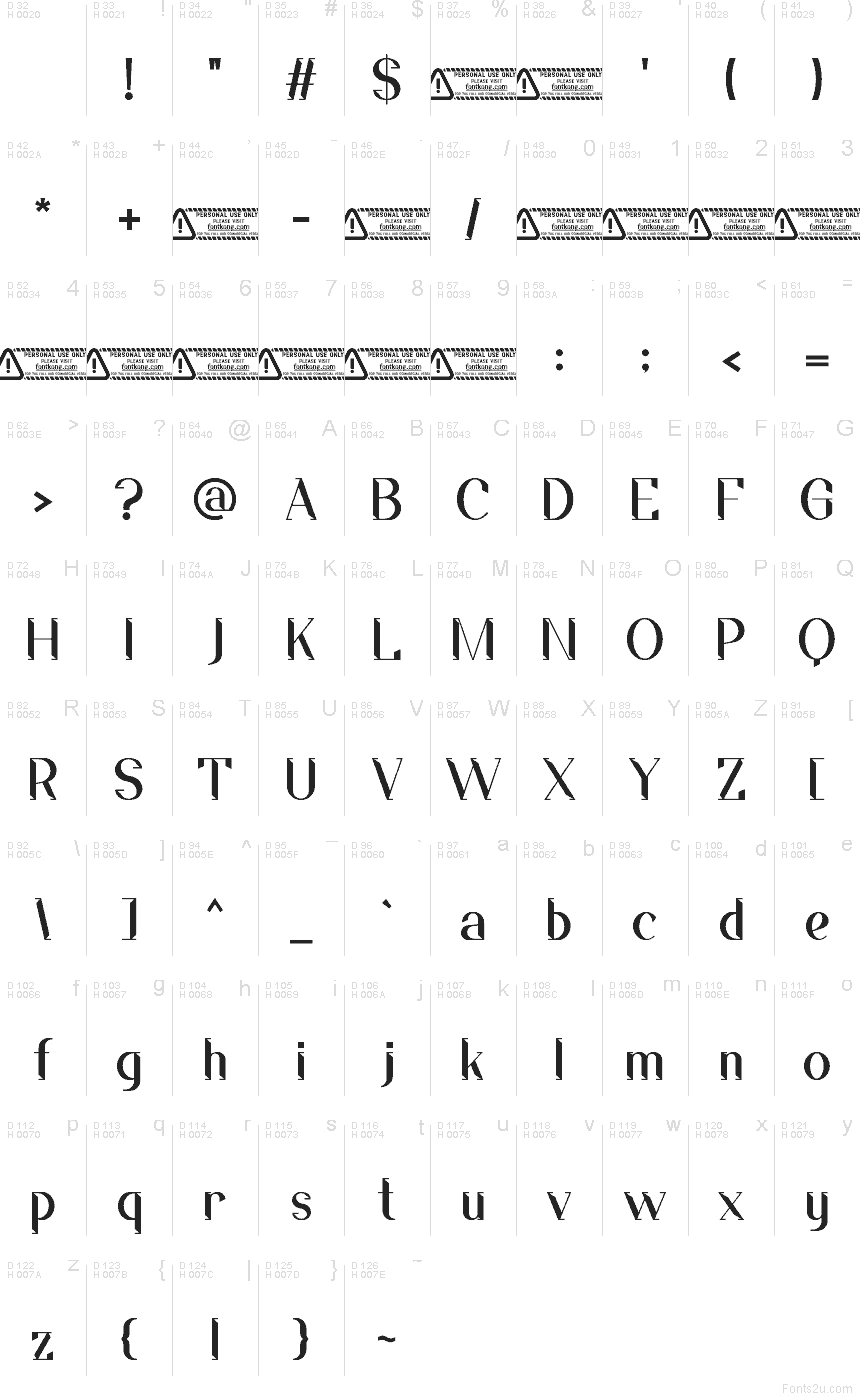
Flowzic font by Kong Font is a free decorative display serif typeface with a bold, theatrical presence. Its chunky letterforms are sliced with crisp, unexpected cuts that feel part stencil, part fashion logo, creating a striking rhythm across a word. Those sculpted shapes catch the eye like inked shadows, giving headlines a sense of movement and drama without feeling chaotic.
Using Flowzic, your text turns into a graphic element on its own, which shines on posters, album covers, branding for edgy boutiques, magazine mastheads, event graphics, and social media promos. This free font works best when given room to breathe—set it large and pair it with a clean, understated sans serif for body copy to let its carved details really stand out.